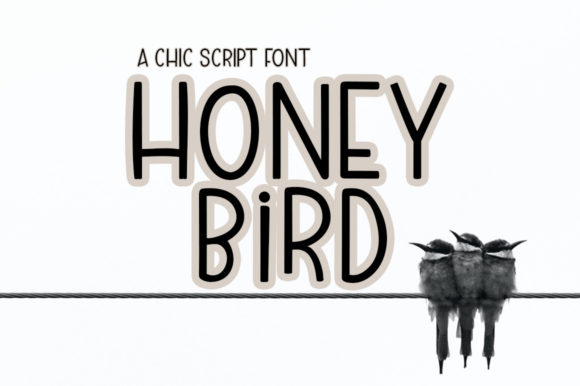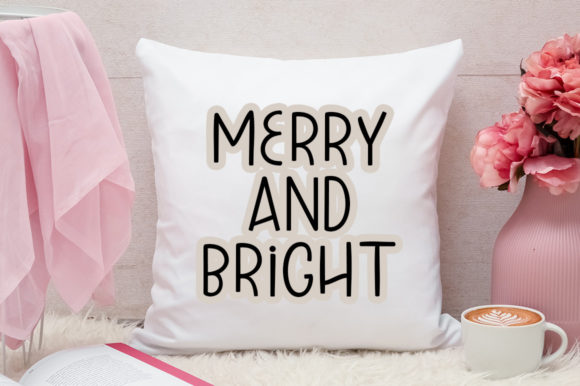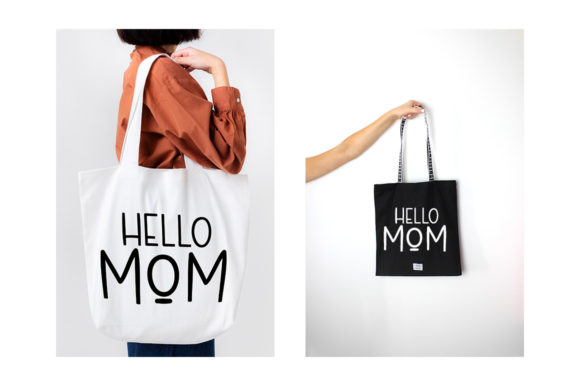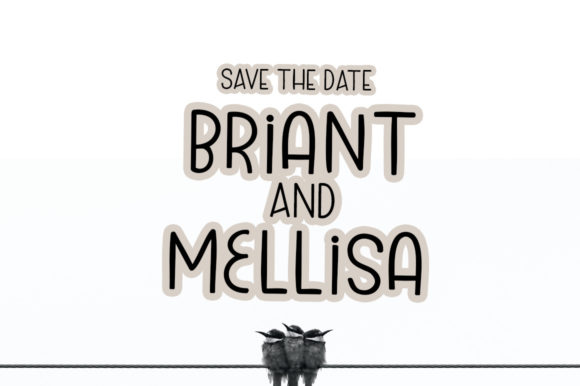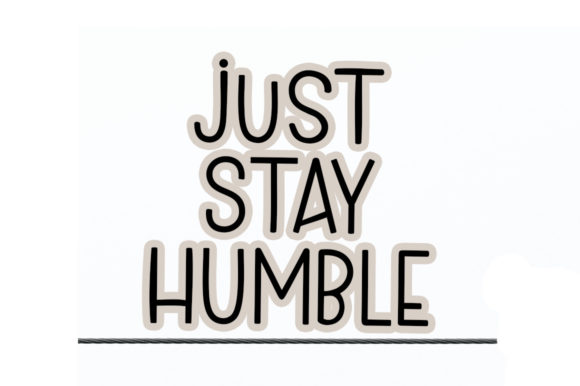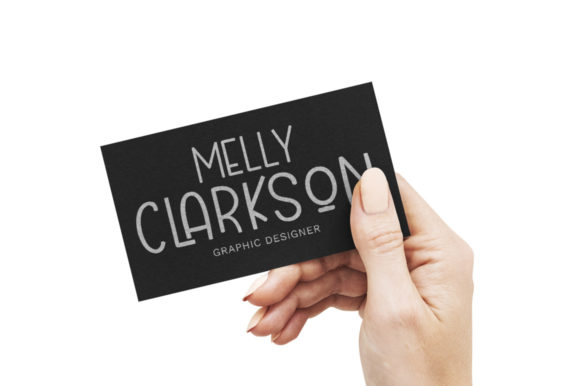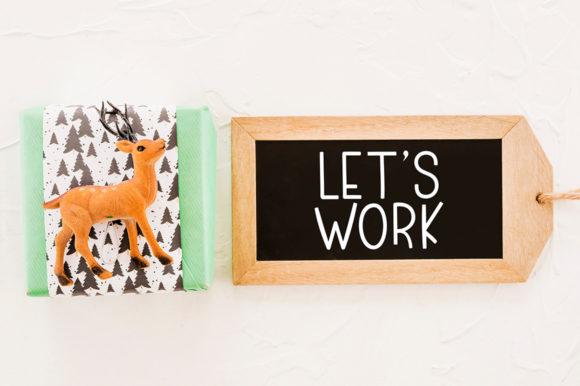
Honey Bird Font
About Honey Bird Font
Honey Bird, a chic script font, effortlessly brings a natural and sophisticated aesthetic to your designs. Its unique charm is revealed as uppercase and lowercase letters seamlessly combine to create beautiful, flowing writing. This font serves as the perfect choice for a variety of applications, with its versatility shining through in wedding invitations, social media quotes, and beyond.
The inherent chic quality of Honey Bird adds an elegant touch to any project. Whether you’re designing wedding invitations that require a touch of romance or crafting engaging social media quotes, this font enhances the visual appeal with its effortlessly flowing script. The combination of uppercase and lowercase letters provides a dynamic and harmonious look, contributing to the overall grace of your designs.
Honey Bird’s PUA encoding feature adds an extra layer of convenience to the design process. With easy access to a plethora of amazing glyphs and ligatures, designers can further customize their creations, ensuring a unique and personalized touch. This feature not only enhances the font’s accessibility but also empowers designers to explore the full range of creative possibilities that Honey Bird offers.
As you engage with Honey Bird, consider it more than just a font; it becomes a key element in expressing your design vision. The ability to effortlessly combine letters, access diverse glyphs, and experiment with ligatures gives you the freedom to create designs that stand out. Honey Bird invites you to infuse your projects with a natural and chic quality, leaving a lasting impression on your audience.
In summary, Honey Bird is not just a script font; it is a chic and versatile design tool that enhances the natural beauty of your creations. Whether used for wedding invitations, social media quotes, or any other project that requires an elegant script, Honey Bird brings a touch of sophistication and uniqueness. Let this font be the muse that transforms your designs into captivating works of art, ensuring that each project is a true reflection of your creative style.